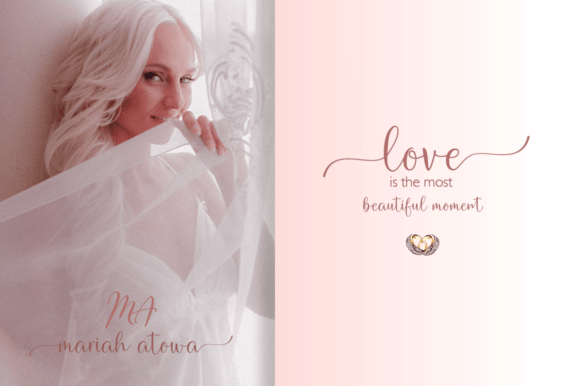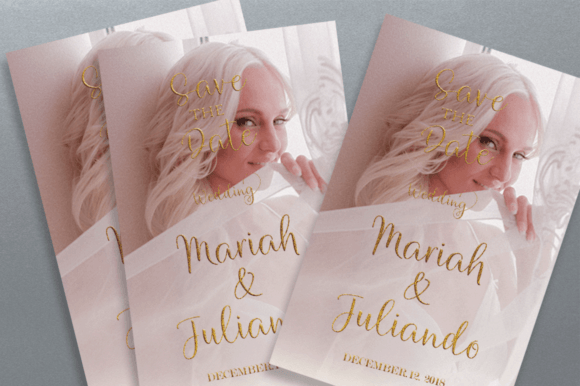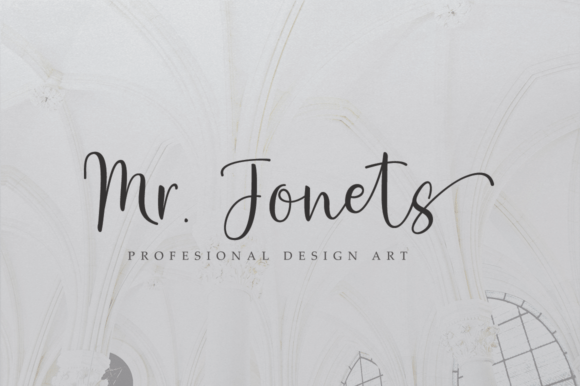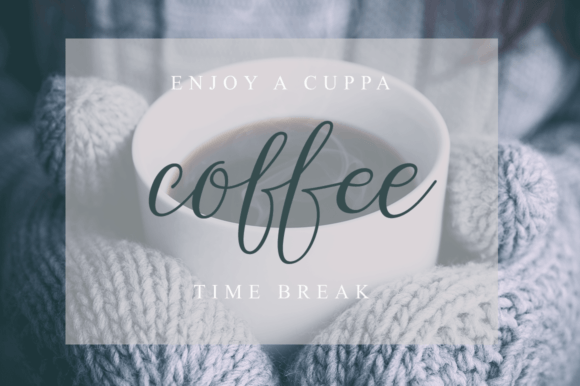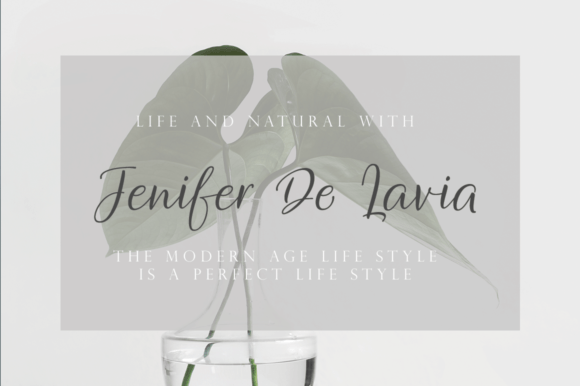
Heirley Script Font
About Heirley Script Font
“Heirley Script” is a font that effortlessly exudes charm and smoothness, creating a captivating handwritten script that adds a touch of elegance to any project. Regardless of the subject matter, this font stands out as an invaluable addition to your fonts’ library, offering the potential to enhance and elevate the aesthetic of any creation.
The charm of “Heirley Script” lies in its fluid and graceful strokes, which contribute to a seamless and pleasing visual experience. The handwritten quality of the script adds a personal and authentic touch, making it a versatile choice for a variety of design applications.
One of the standout features of “Heirley Script” is its PUA encoding. This means that the font is equipped with Private Use Area encoding, allowing easy access to a wide range of glyphs and swashes. This feature enhances the font’s flexibility, enabling designers to incorporate unique and stylish elements into their work effortlessly.
Whether you’re working on invitations, branding materials, or any creative project, “Heirley Script” is designed to bring a level of sophistication and character that goes beyond the ordinary. The font becomes a reliable asset in the hands of designers, providing the tools needed to create visually appealing and memorable designs.
Imagine a wedding invitation adorned with the graceful curves and swashes of “Heirley Script,” setting the tone for a romantic and refined celebration. Envision a logo that incorporates the smooth lines of this script, establishing a brand identity that is both stylish and approachable. “Heirley Script” is more than a typeface; it’s a design companion that enhances the overall aesthetic of your creations.
In summary, “Heirley Script” is more than just a font; it’s a charming and versatile tool that brings a touch of sophistication to your designs. With its smooth handwritten style and PUA encoding, this font stands ready to elevate your creative projects, making them truly exceptional and memorable.